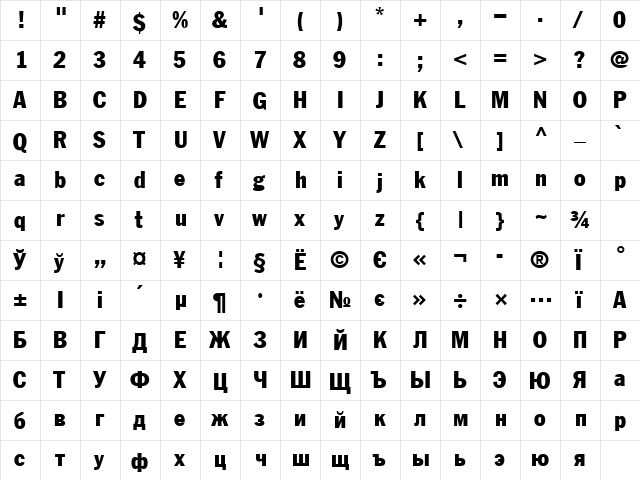
FagotCondensed Normal
Design Context for FagotCondensed Typeface
FagotCondensed offers clean, dependable letterforms without strong stylistic allegiance, making it a practical choice for designers who need flexibility. Its narrow stance lets it pack a punch even in space-constrained designs.